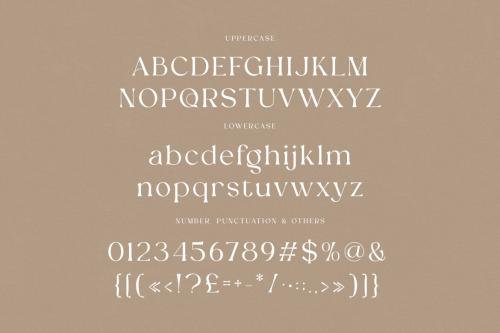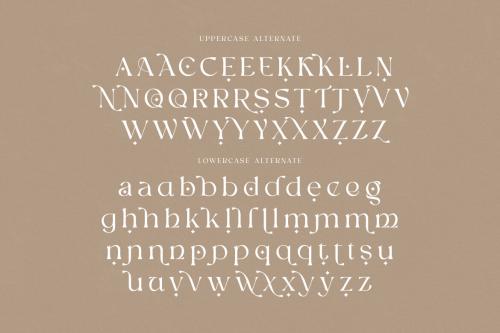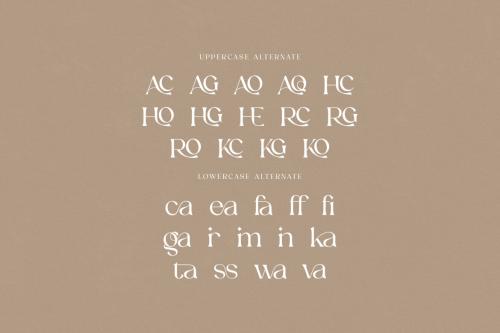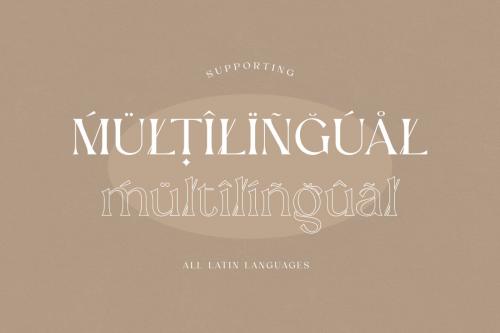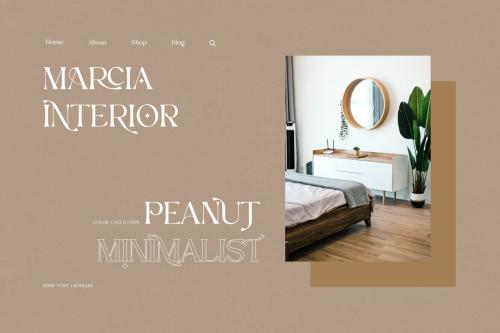
Deeezy - Ligakare Modern Serif
Trendy, elegant, luxury, retro & modern style serif font for your new fancy projects. Stylish, creative and classic style on Ligakare font will be great for any modern branding project. Lot of alternates and ligatures will help you to create unique and original logo design or website header! Enjoy :)